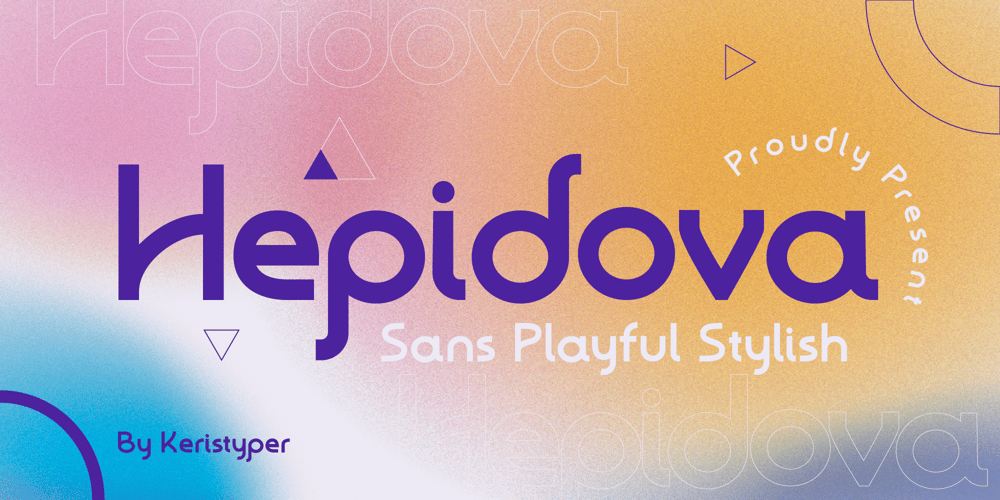
Hepidova Font Family was designed by Tezar Tantular and published by Keristyper Studio. Hepidova contains 1 styles and family package options. Hepidova playful sans serif is a fun font design that refers us to the style of modern sans serif. This font is good for logo design, Social media, Movie Titles, Books Titles, short text even long text letters, and good for your secondary text font with sans or serif.Featured: Standard Uppercase & Lowercase Numeral & Punctuation Multilingual : ä ö ü Ä Ö Ü ß ¿ ¡ Alternate & Ligature PUA encoded We recommend programs that support the OpenType feature and the Glyphs panel such as Adobe applications or Corel Draw. so you can use all the variations of the glyphs.Hope you enjoy our fonts!